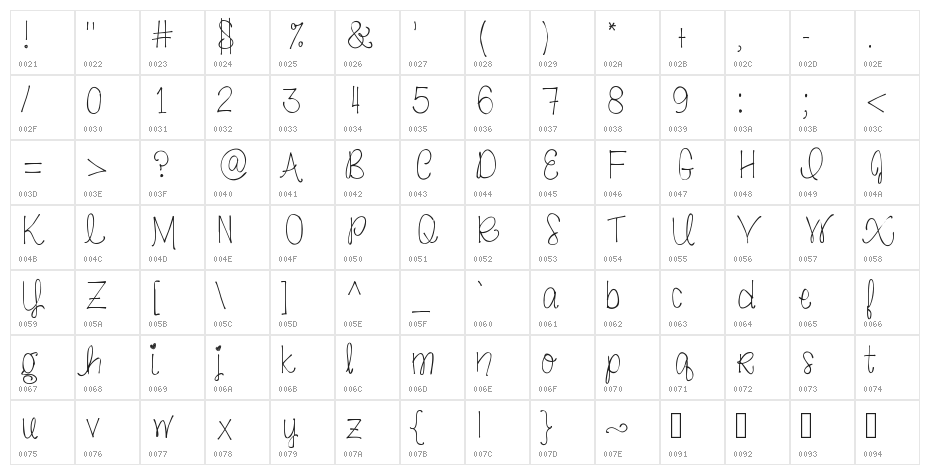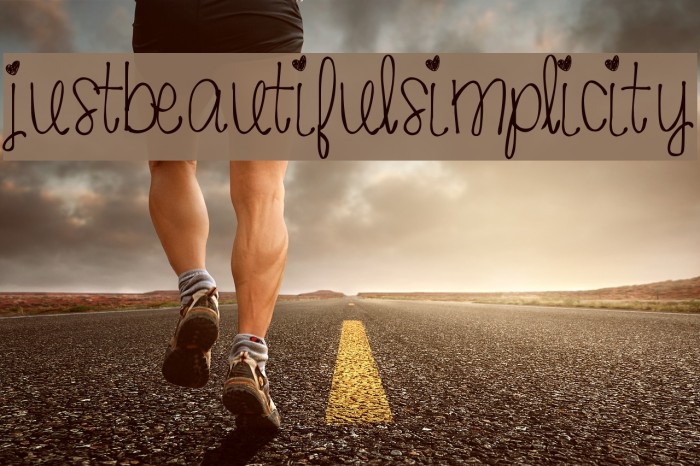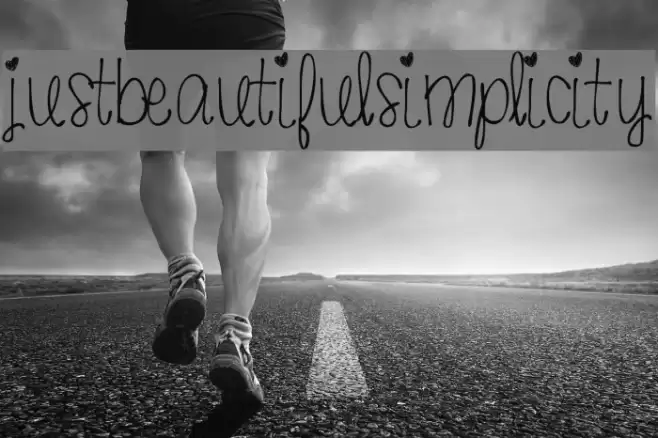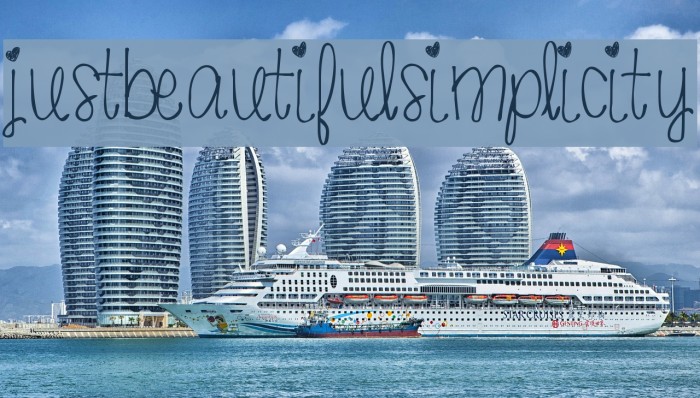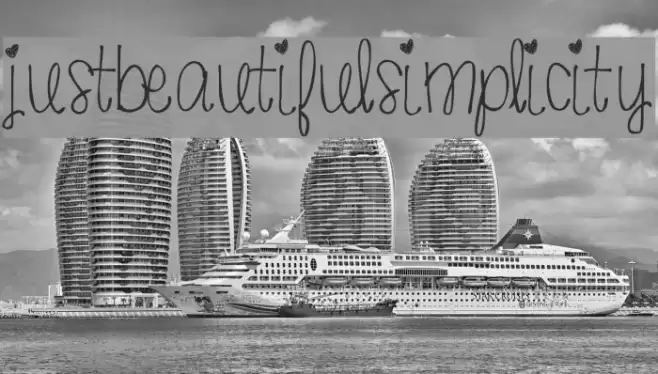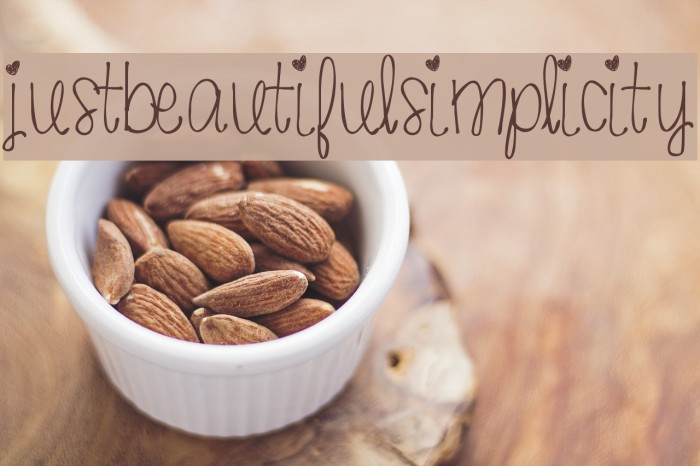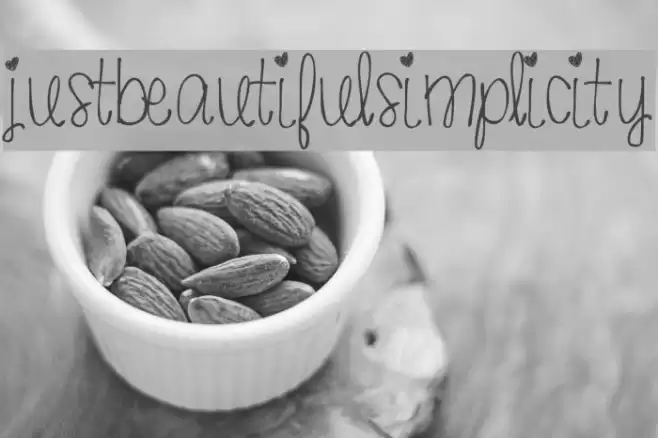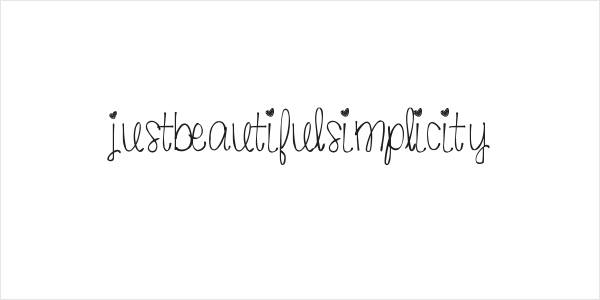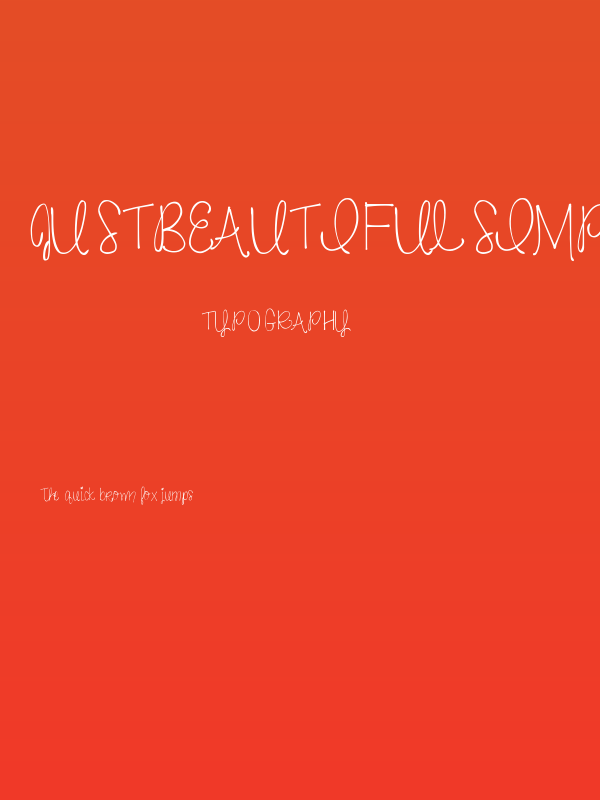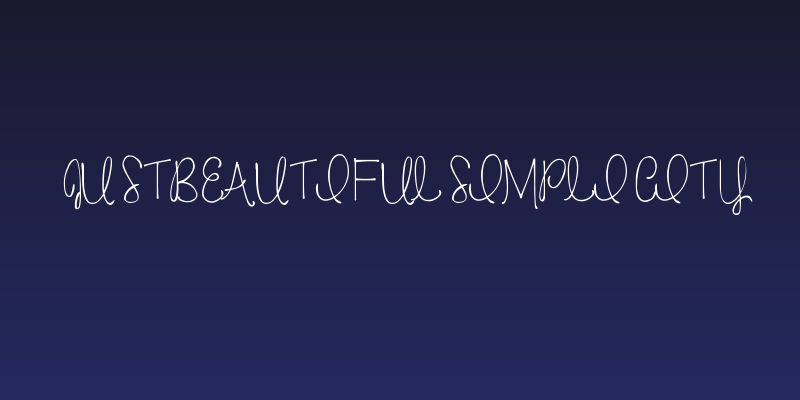
justbeautifulsimplicity Font
justbeautifulsimplicity Description
This font features a whimsical and playful handwritten style, characterized by its flowing and interconnected letters. The uppercase and lowercase letters maintain a consistent height, creating a harmonious look. The strokes are smooth and slightly irregular, adding a personal touch to the text. The numbers and special characters follow the same playful aesthetic, making the font versatile for various creative projects. The overall appearance is charming and approachable, suitable for designs that aim to convey warmth and friendliness.
| Proposed Projects | Ideal for greeting cards, invitations, children's books, and playful branding projects. |